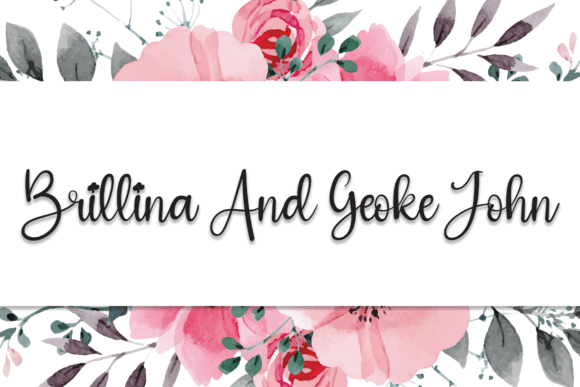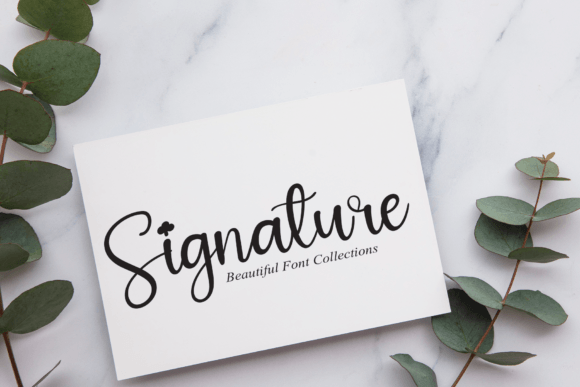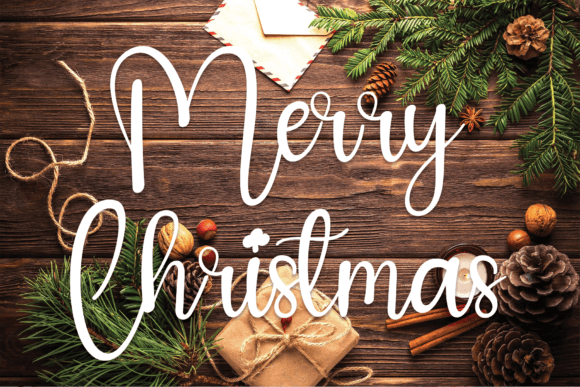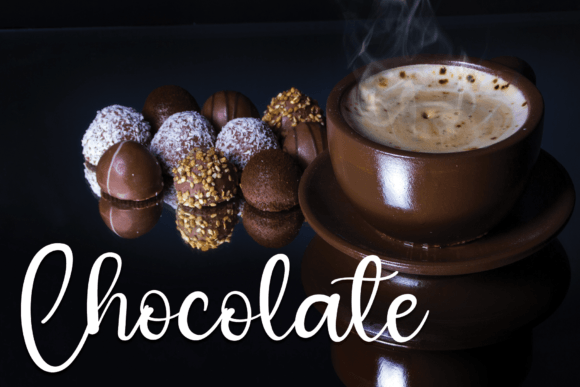
Angel Christmas Font
Add Magic to Your Holidays with Angel Christmas Font
Angel Christmas Font is a whimsical and heartwarming handwritten typeface created for the festive season. It’s a delightful choice for your digital and print design needs, offering a personal touch that feels cheerful and cozy.
Ideal for All Holiday Projects
Whether you’re crafting custom greeting cards, designing winter-themed presentations, or creating printable decorations, Angel ChristmasFont is a versatile companion. With its soft curves and inviting flow, this font is ideal for:
• Holiday crafts
• Digital scrapbooks
• Social media graphics
• Handmade labels and gift tags
• Event invitations and more
Why Choose Angel Christmas Font?
This typeface captures the joyful essence of the holiday season. It blends a friendly handwritten style with a hint of festive elegance. The font’s clean lines make it suitable for both large headlines and small caption text. Whether you’re working on a school craft or a brand’s Christmas campaign, this font helps deliver your message with style.